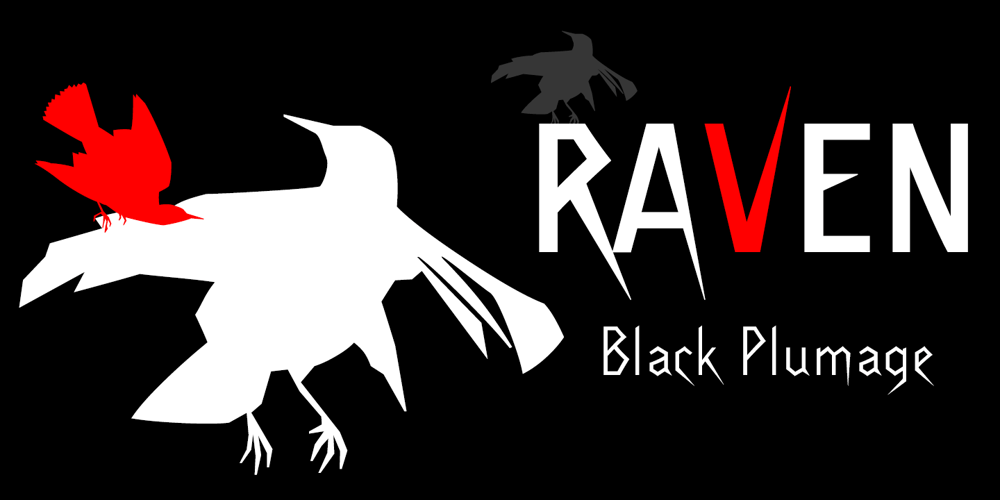
Raven Font Family was designed by Holly Goldsmith and published by Bitstream. Raven contains 2 styles and family package options. Raven was inspired by type that Holly Goldsmith found on an antique greeting card. With its Gothic feel, it is the perfect typeface to gain a little bit of an edge. In the companion Raven Extra fonts, there are hidden characters, four ravens, which complement its Poe-like nature. Both Raven and its bolder mate, Raven Evermore, work beautifully in text and display sizes.